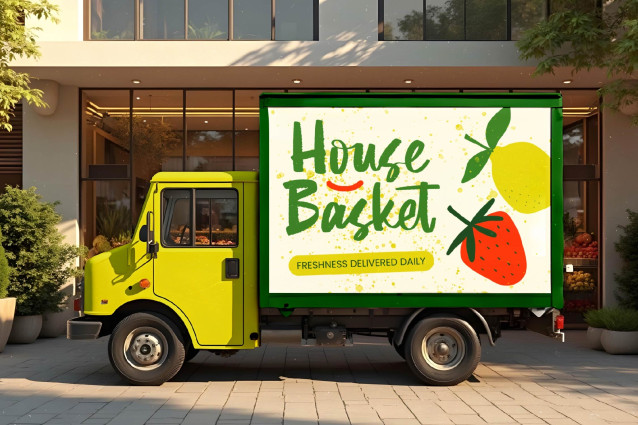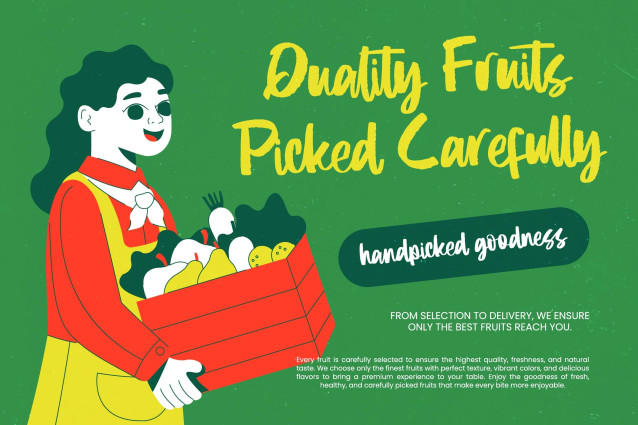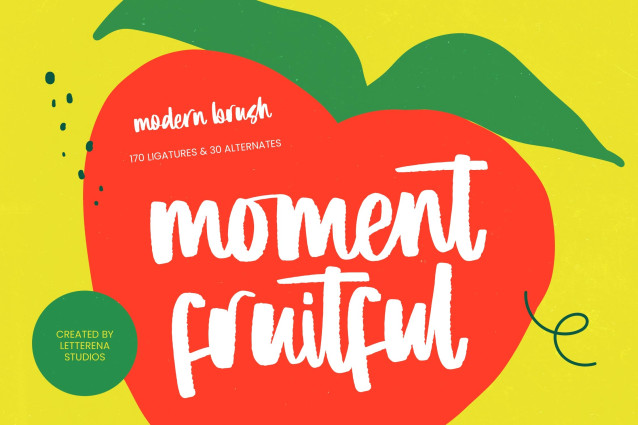
Moment Fruitful – Modern Brush is a dynamic brush script designed for maximum impact, blending authentic hand-drawn textures with a contemporary aesthetic. It captures a sense of spontaneity while maintaining the professional readability necessary for high-stakes design work.
Unlock unparalleled customization with a vast library of advanced stylistic features. Boasting 170 ligatures and 30 alternates, Moment Fruitful – Modern Brush provides creators with the tools to produce unique, custom-lettered looks effortlessly. This level of typographic variety ensures that every project remains distinctive and high-end, catering perfectly to brands seeking a bespoke identity.